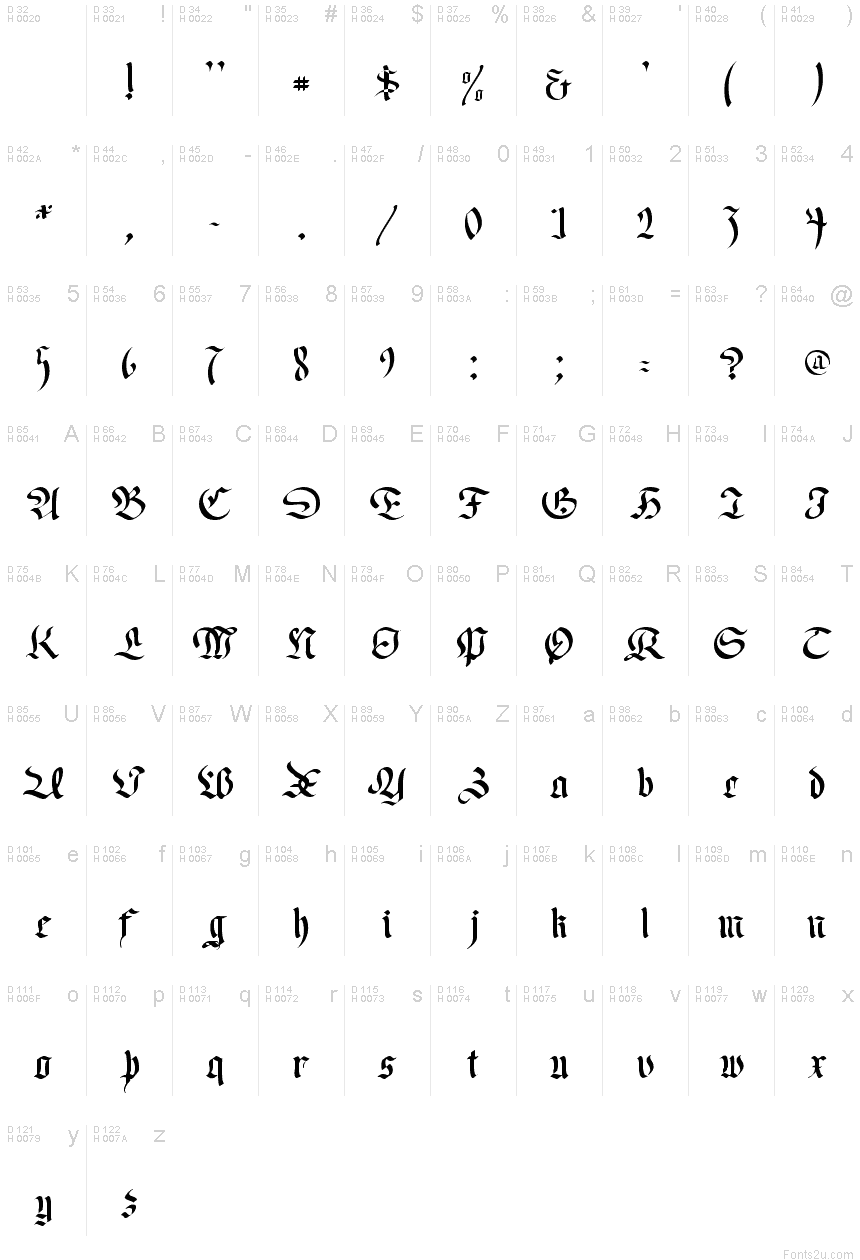
Passeul
Passeul font is a free medieval gothic typeface with inky, calligraphic strokes that feel lifted from an old manuscript. Its letters are tall and narrow, stitched together by sharp angles and heavy strokes that create a dense, dramatic texture. There’s a hand-written irregularity to the shapes that keeps them from feeling sterile, giving every word a ceremonial, almost ritual tone.
Using Passeul, headlines instantly take on a fantasy or historical voice that’s hard to fake with more generic gothics. This free font works beautifully for RPG titles, fantasy book covers, metal or darkwave band logos, medieval festival posters, tattoo-inspired graphics, and themed event invitations. For readability, set Passeul large and pair it with a clean geometric sans serif for body copy to let those ornate letterforms breathe.